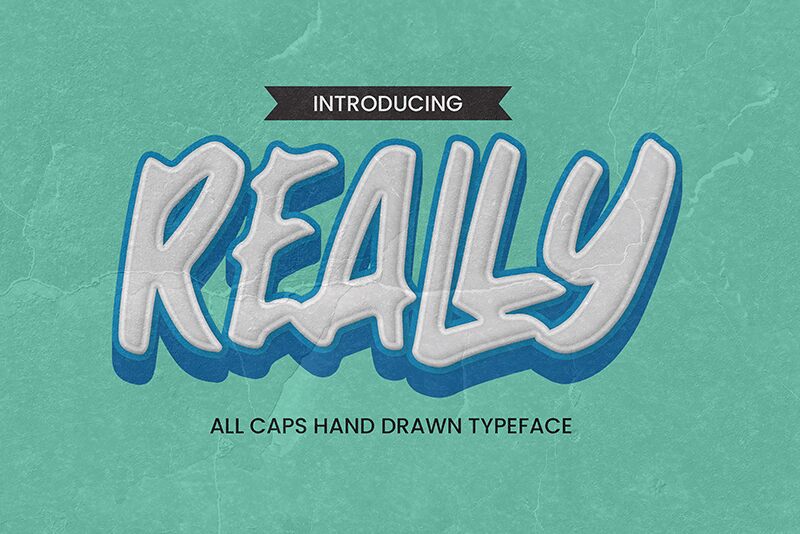
Really
Dive into the dynamic world of "Really," a brush-style font meticulously crafted by Gassstype. This semi-bold, condensed all-caps hand-drawn typeface exudes modern flair and dramatic movement, capturing the essence of spontaneity with every stroke. Designed to make a statement, Really transforms any creative project with its authentic and powerful vibe.
Perfect for an array of design needs, from eye-catching labels to compelling posters, Really brings an air of strength and originality to your work. Whether you're branding a business, packaging a product, or personalizing greeting cards and websites—this font ensures your designs not only stand out but resonate with viewers.
With textured nuances that give it a natural look, Really also includes ligature glyphs accessible through the OpenType panel, allowing for even more customization. This versatility makes it an indispensable asset for photographers, scrapbookers, and designers keen on adding that extra touch of character to their creations.